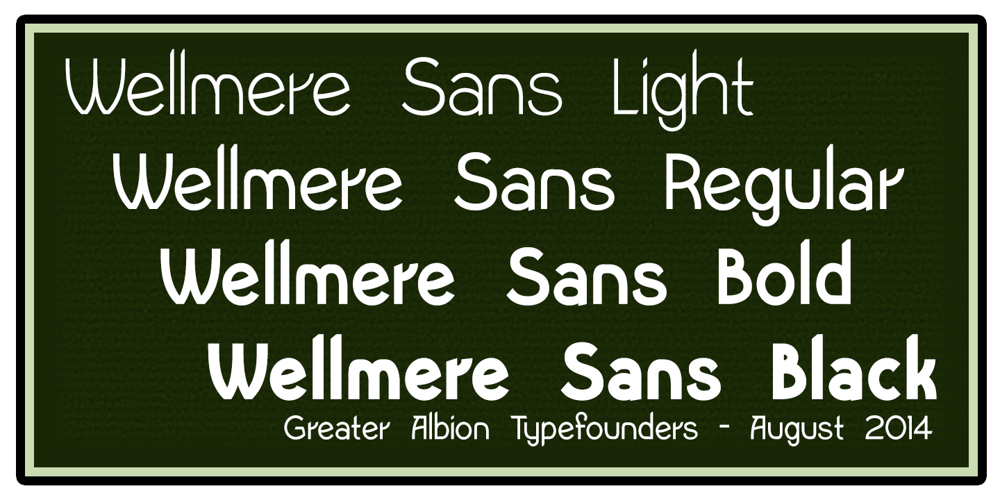
Wellmere Sans Font Family was designed by Paul James Lloyd and published by Greater Albion Typefounders. Wellmere Sans contains 4 styles and family package options. Wellmere Sans is humanist a ‘sans serif’ typeface combining distinctive character with easy legibility. The emphasis here is on elegant simplicity and clarity. No alternate forms, no ligatures, just good simple design and elegance giving clarity and ease of communication. Ideal for timeless presentation of information, signs, posters, computer displays and so forth.